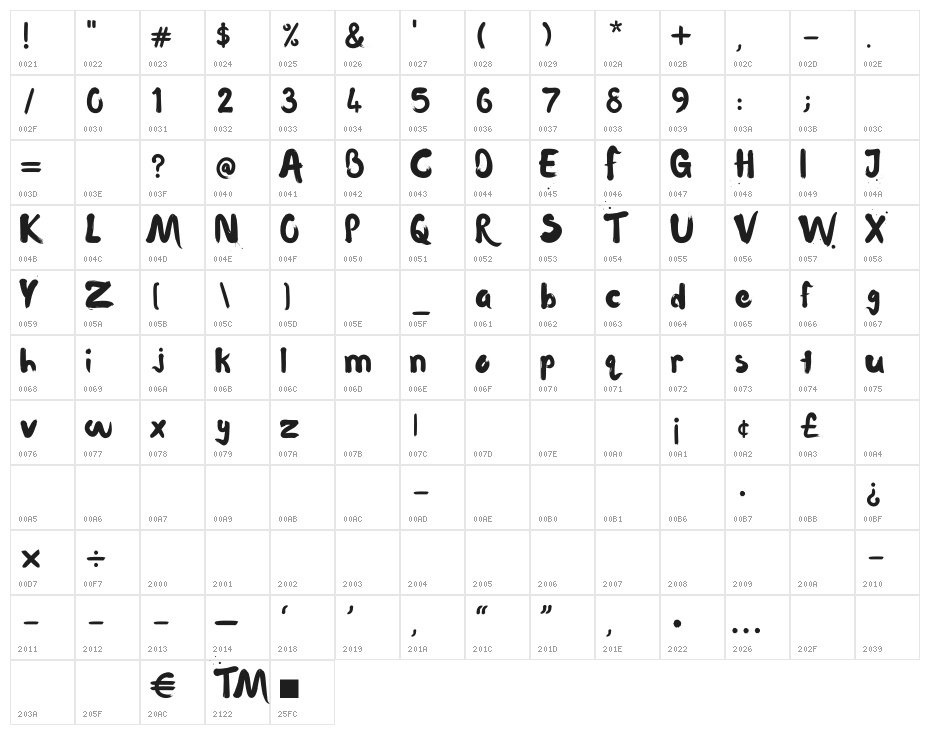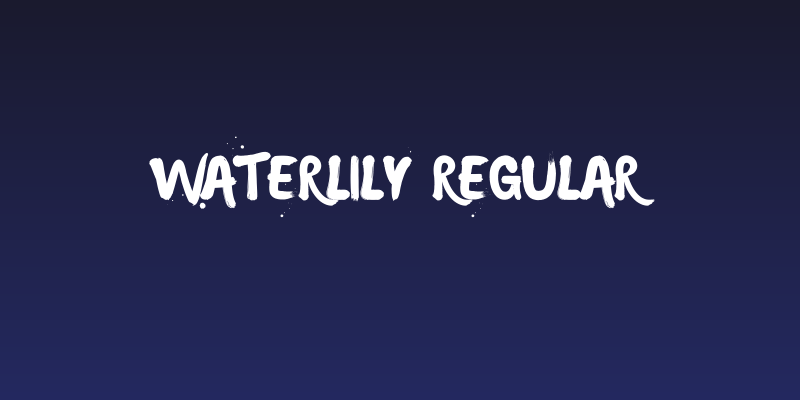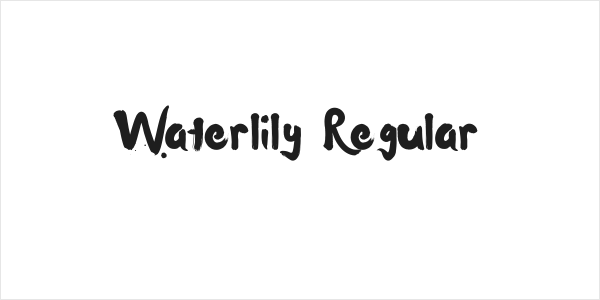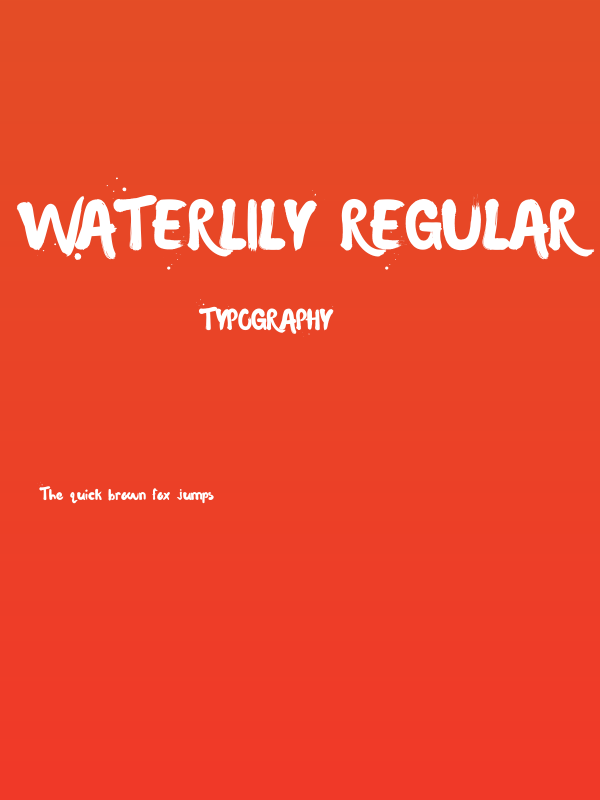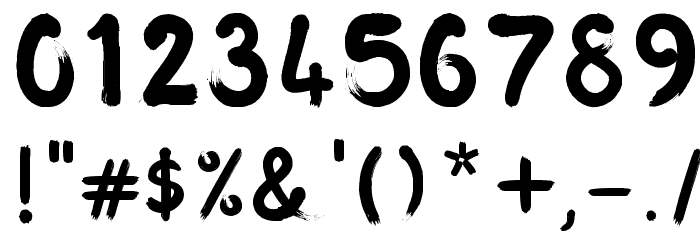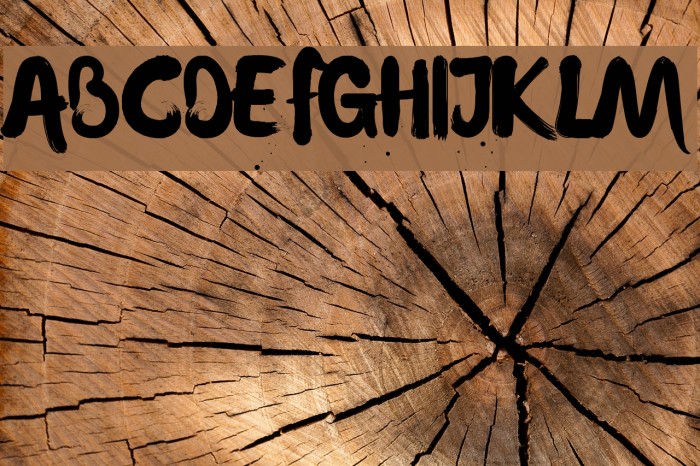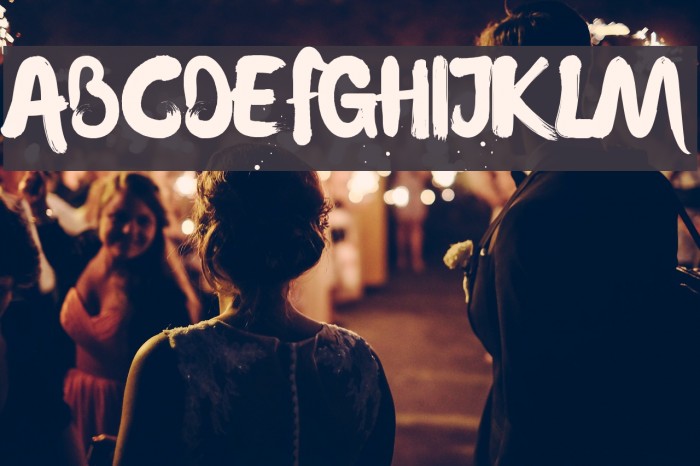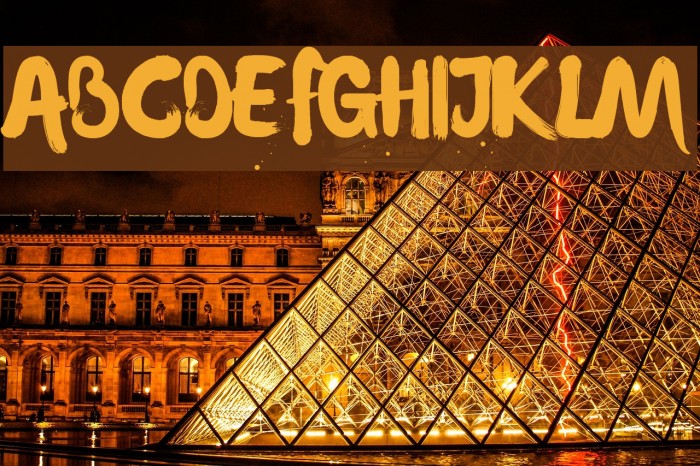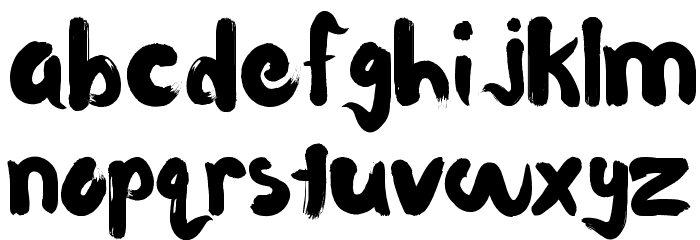
Waterlily Regular Font
Waterlily Regular Description
This font exudes a bold, artistic flair with its brushstroke-inspired design. Each character appears as if it has been painted with a thick brush, giving it a dynamic and expressive quality. The strokes are uneven, adding a sense of movement and energy. The uppercase letters are particularly striking, with their broad, sweeping lines, while the lowercase letters maintain a more compact and rounded form. Numbers and special characters follow the same artistic style, ensuring consistency across all elements. This font is perfect for projects that require a creative and bold statement, such as posters, artistic branding, or any design that seeks to capture attention with its unique and handcrafted appearance.
| Overall Style | Artistic, Expressive |
| Proposed Projects | Ideal for posters, artistic branding, creative advertisements, and eye-catching headlines. |